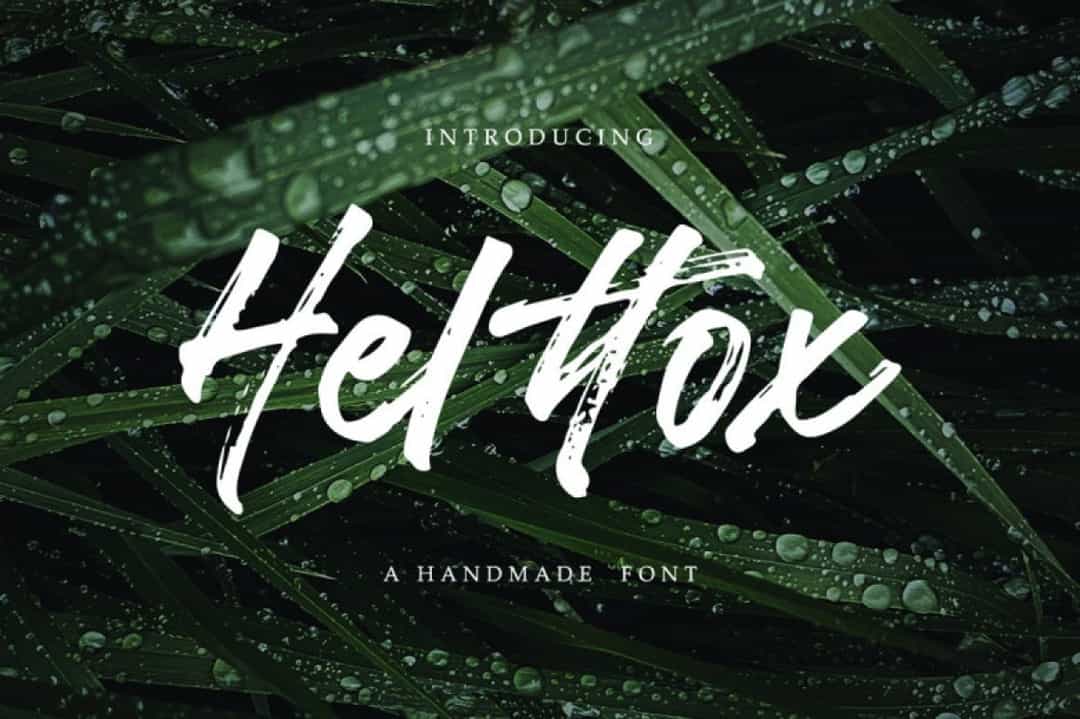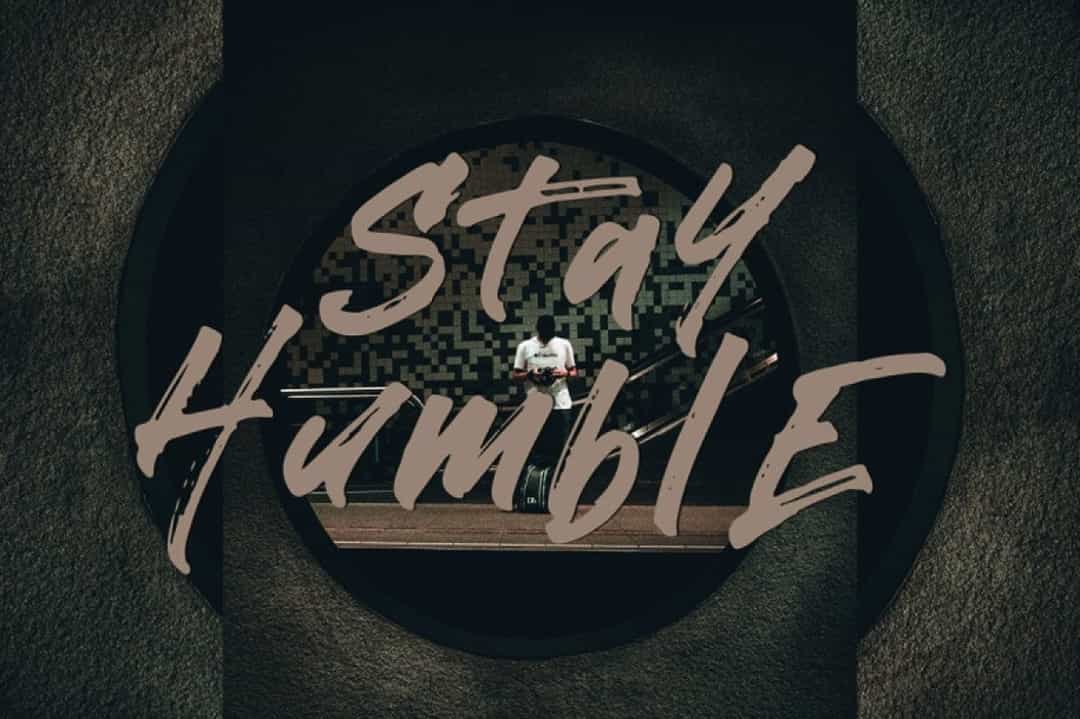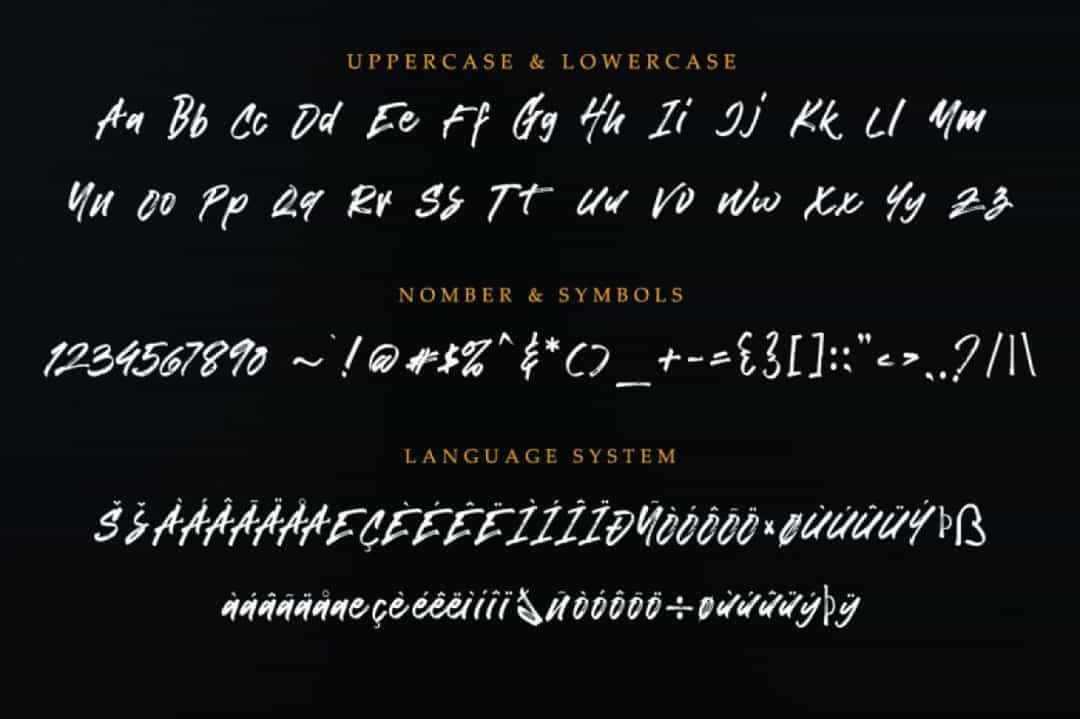
Discover Helttox Font, part of the Brush collection—a versatile and unique font perfect for adding a personal touch to your projects. Download it for free and enjoy crafting designs with style, from invitations to social media posts. This font is available exclusively for personal use, giving you the freedom to create without limits. Unlock your creativity with Helttox Font today!
Helttox is an eye-catching hand brush script font with an authentic handwriting feel, featuring four lowercase sets and two uppercase sets to emulate authentic handwriting. Perfect for logos, design projects branding posters wedding invitations quotes Stationery art social networks posts greeting cards among other designs.